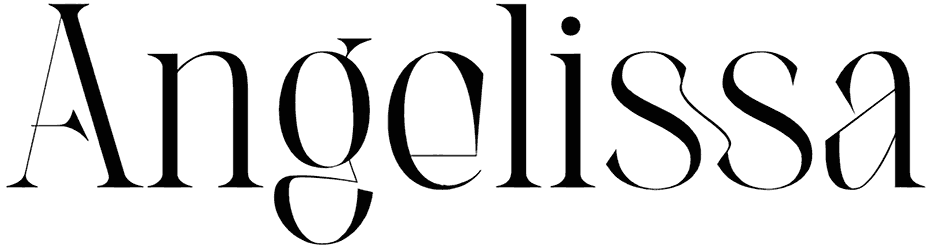
Angelissa Font
Angelissa is a serif font with a completely classic appearance that simulates ancient writings and can create a historical atmosphere in your projects. It is a versatile font that looks good on any project and can create a professional and severe design feeling. This luxury font can transform your logo design, photo cover, branding, and website to higher levels.